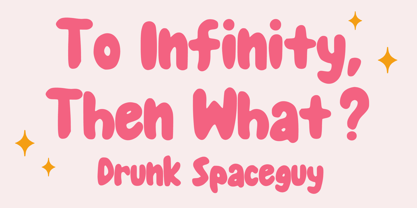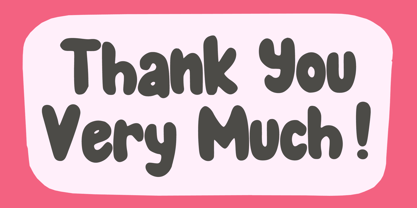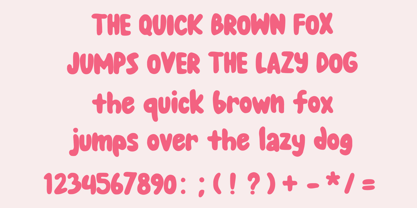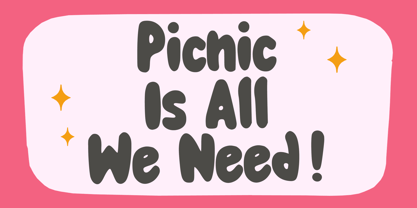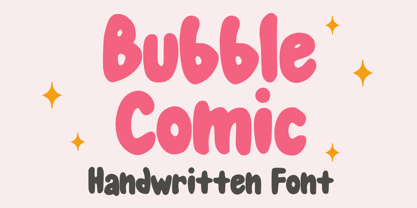
Bubble Comic
The Bubble Comic Font Family was designed by Gabriel Valentinus and published by Mvmet. Bubble Comic contains 1 styles. More about this family
Introducing Bubble Comic – a whimsically versatile, handcrafted font birthed from the world of comics and animations. Brimming with charm, its vivacious round strokes make it an ideal option to underscore a variety of creative projects. Masterfully suited for sticker concepts, t-shirt creation, captivating logo development, influential book or magazine covers, and cartoon illustrations, Bubble Comic surely leaves an indelible sprightly impression. With its comic-centric roots, it even makes routine typing a delightfully engaging experience. Take your designs to unprecedented heights with Bubble Comic and experience the amazing impact of its super-cool essence.
Designers: Gabriel Valentinus
Current Foundry: Mvmet